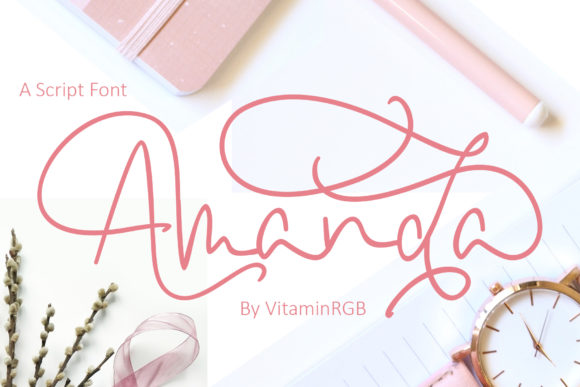
The Amanda Script Font: Elevate Your Designs with Luxurious Flair
I’ll never forget the time I was working on a high-end branding project for a luxury fashion client. I had spent hours perfecting the logo, but something felt off. The design was sleek and modern, but it lacked a certain je ne sais quoi. That’s when I realized the problem: the font. It was bland, generic, and completely failed to capture the essence of the brand. I scoured the internet for the perfect font, and that’s when I stumbled upon the Amanda Script Font. ✨
It was love at first sight! The elegant, cursive lines and stylish flair instantly elevated my design to new heights. I knew right then and there that I had to share this beauty with fellow designers and creatives. In this article, I’ll dive into the world of Amanda Script Font, sharing my honest review, a practical guide on how to use it, and some fantastic alternatives to explore.
• 💫 Stylish and classy look that’s perfect for luxury brands and high-end designs
• ✅ Elegant, cursive lines that add a touch of sophistication to any project
• 🎉 Highly versatile and can be used for a wide range of design applications, from logos to invitations
• 📚 Extensive character set, including OpenType features and glyphs, for added creative control
• ⚠️ Limited use for body text due to its script nature; best used for headlines and titles
• 🤔 May require some tweaking to get the kerning just right, especially for larger text sizes
The Story Behind Amanda Script Font
Amanda Script Font was designed by a talented typographer who wanted to create a font that exuded luxury and sophistication. Inspired by classic calligraphy and elegant handwriting, the font was crafted to add a touch of glamour to any design. With its extensive character set and OpenType features, Amanda Script Font is the perfect choice for designers and creatives looking to elevate their work.
Font Name Amanda Script Font
Author VitaminRGB
What is Amanda Script Font best used for? Amanda Script Font is ideal for luxury branding, high-end designs, and elegant stationery. It’s perfect for adding a touch of sophistication to your projects.
Can I use Amanda Script Font for body text? While Amanda Script Font is beautiful, it’s best used for headlines and titles due to its script nature. For body text, consider a more traditional font for better readability.
Does Amanda Script Font support OpenType features? Yes! Amanda Script Font comes with an extensive character set and supports OpenType features, such as ligatures, stylistic alternates, and glyphs.